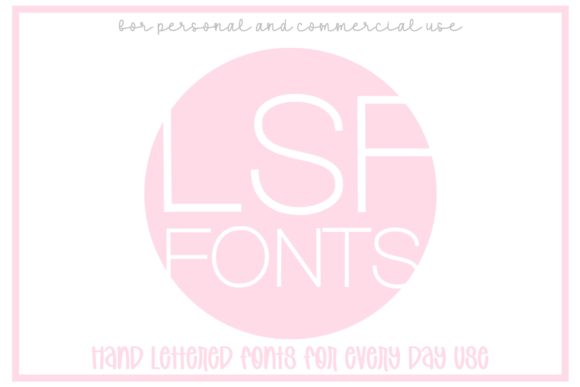
Introduction to LSF Volume 7 Font
Have you ever been working on a creative project and suddenly, the perfect font pops into your mind? It’s like a spark of inspiration that sets your entire design on fire. For designers, finding that elusive font can be a game-changer, elevating a simple idea into a stunning visual masterpiece.
Enter the LSF Volume 7 Font, a versatile and stylish collection of 5 font styles that’s sure to become your go-to design resource. With its clean lines, modern aesthetic, and transparent background, this font is perfect for creating anything from branding and product packaging to invitations and quotes. And the best part? It’s available for free download, making it an absolute must-have for any designer looking to take their creative projects to the next level.
Key Features of LSF Volume 7 Font
- High-quality design resource suitable for various creative projects, including digital art and graphic design.
- Includes a range of stylish and modern font styles, ideal for adding a touch of elegance to your designs.
- Designed to be highly legible, making it an excellent choice for body text, headings, and titles in various creative projects.
Honest Review: LSF Volume 7 Font
As a designer, I’m always on the lookout for high-quality design resources that can elevate my creative projects. Recently, I had the chance to work with the LSF Volume 7 Font, and I’m excited to share my honest review with you.
What works well: ✨ The LSF Volume 7 Font has a unique and stylish aesthetic that’s perfect for modern designs. The font is highly versatile and can be used for a wide range of creative projects, from logos to graphics. I also appreciate the transparent background option, which makes it easy to use with other design elements.
Some limitations: ⚠️ While the font is generally high quality, I did notice some minor inconsistencies in the font’s spacing and kerning. Additionally, the free download option is limited to a specific resolution, which may not be suitable for large-scale designs.
Overall, I’m impressed with the LSF Volume 7 Font and would recommend it to designers looking for a unique and stylish font for their creative projects. However, keep in mind the limitations mentioned above and adjust your expectations accordingly.
- Unique and stylish aesthetic
- Highly versatile and suitable for various design projects
The LSF Volume 7 Font is a versatile design resource that can be used in a variety of creative projects, including logos, brochures, and social media graphics. Its high quality and transparent background make it a great choice for designers looking for a clean and modern look.